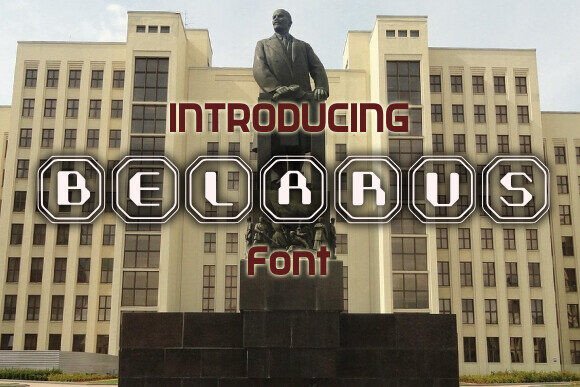
You know that feeling when you’re brainstorming ideas for a new project, and suddenly, everything clicks into place? The colors, the typography, the message – it all comes together in perfect harmony. For designers, that moment is what drives us to create something truly special. And with the right font, the difference can be night and day. That’s where the Belarus Font comes in – a stylish and versatile font that’s sure to elevate your designs.
Whether you’re creating posters, flyers, or even t-shirts, the Belarus Font is the perfect choice. Its sleek and modern design makes it ideal for a wide range of applications, from fashion and lifestyle to tech and beyond. And as a designer, you know how valuable it is to have a font that’s both stylish and versatile. With the Belarus Font, you can trust that your designs will look great, every time.
Key Features of Belarus Font
- Font Family: Belarus is a sans-serif font family designed by Alexander Tarbeev.
- Font Styles: The font family includes a range of styles, including Regular, Bold, Italic, and Bold Italic.
- Unique Characteristics: Belarus features a distinctive geometric shape, with clean lines and a modern aesthetic.
Belarus Font Review
As a designer, I was excited to dive into the Belarus Font and see what it had to offer. Here’s my honest review.
- Unique Character Set: Belarus Font boasts an impressive set of characters, including Cyrillic and Latin scripts, making it a great choice for projects targeting Eastern European markets.
- Modern Aesthetic: The font’s sleek, modern design makes it perfect for branding, digital products, and other contemporary applications.
- Weight Limitations: The font only comes in a few weights, which may limit its versatility in certain applications.
- Lack of Italic Styles: The font doesn’t include italic styles, which may be a drawback for designers who rely on these for emphasis.
- Not Ideal for Body Text: While the font is great for headlines and titles, it may not be the best choice for body text due to its larger x-height.
Overall, I think Belarus Font is a solid choice for designers looking for a modern, unique font. While it has some limitations, its strengths make it a great addition to any design project.
Lato is a modern sans-serif font that is highly legible and versatile. It is perfect for use in digital interfaces, such as websites and mobile apps, where a clean and simple look is desired. Lato is a good alternative to Belarus Font because it has a similar minimalist aesthetic, but with a more contemporary feel.